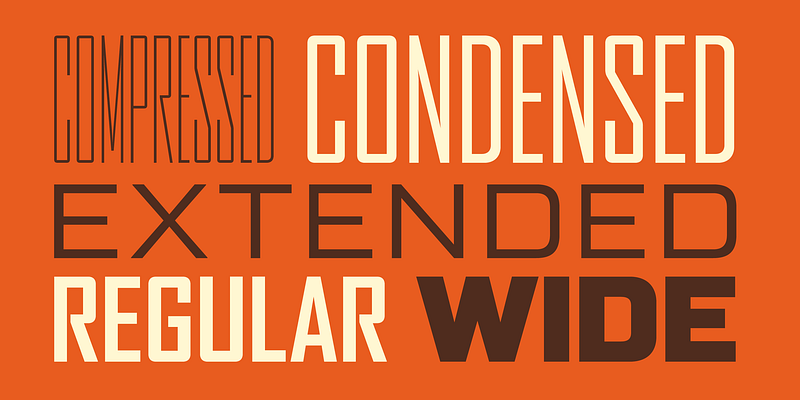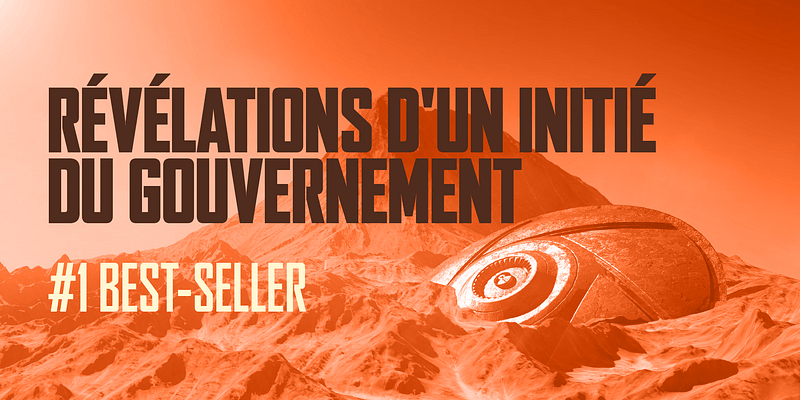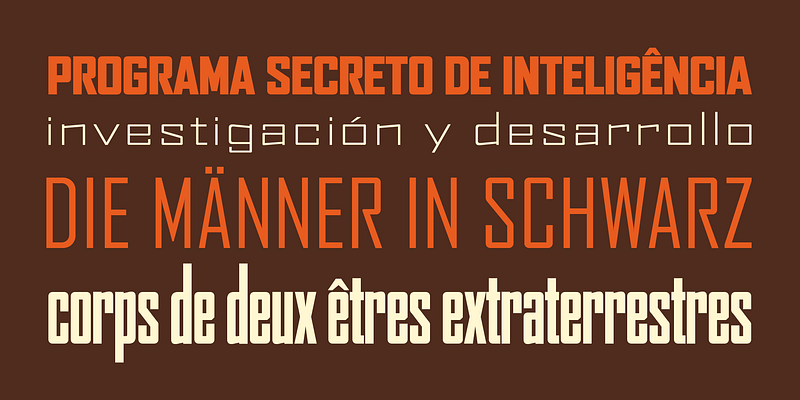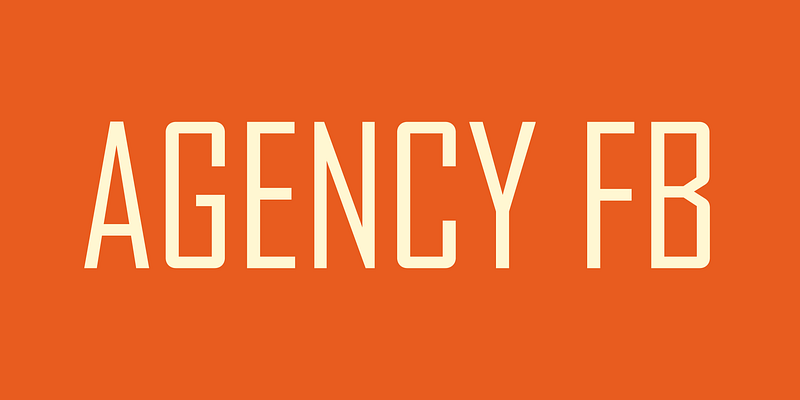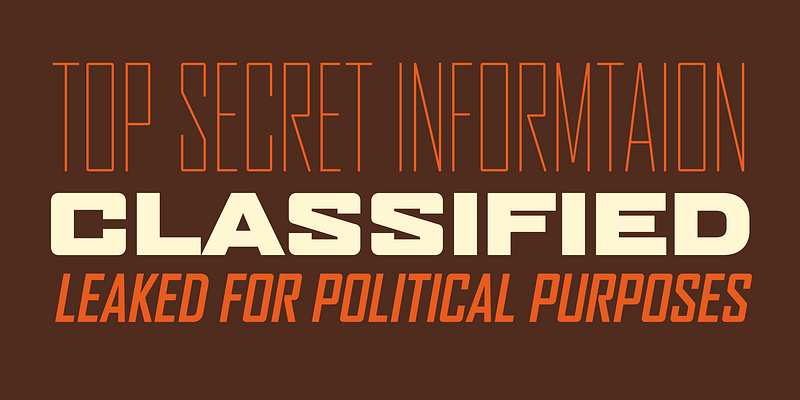
ATF Agency Gothic was designed by Morris Fuller Benton in 1932 as a lone titling typeface. In 1990, David Berlow saw potential in the squared forms of the narrow, monotone capitals. He designed a lowercase and added a bold to produce Font Bureau Agency, an immediately popular hit. Sensing its potential to be than just a useful condensed face, Font Bureau developed Agency into a major series offering five weights in five widths; FB 1990-95